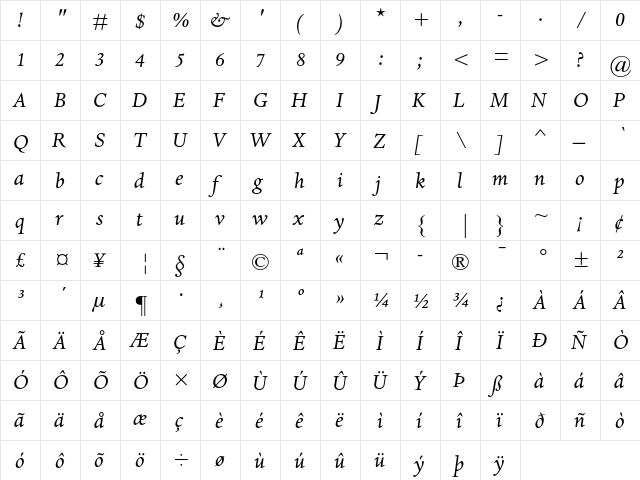
Dante MT Italic Font Preview
Dante MT Italic
Design Context for Dante MT Typeface
Dante MT offers clean, dependable letterforms without strong stylistic allegiance, making it a practical choice for designers who need flexibility. Its italic angle brings a sense of urgency and motion to the letterforms.
Pro Tip: Use Dante MT for emphasis, pull quotes, and subheadings where its slanted energy can add rhythm to the layout.